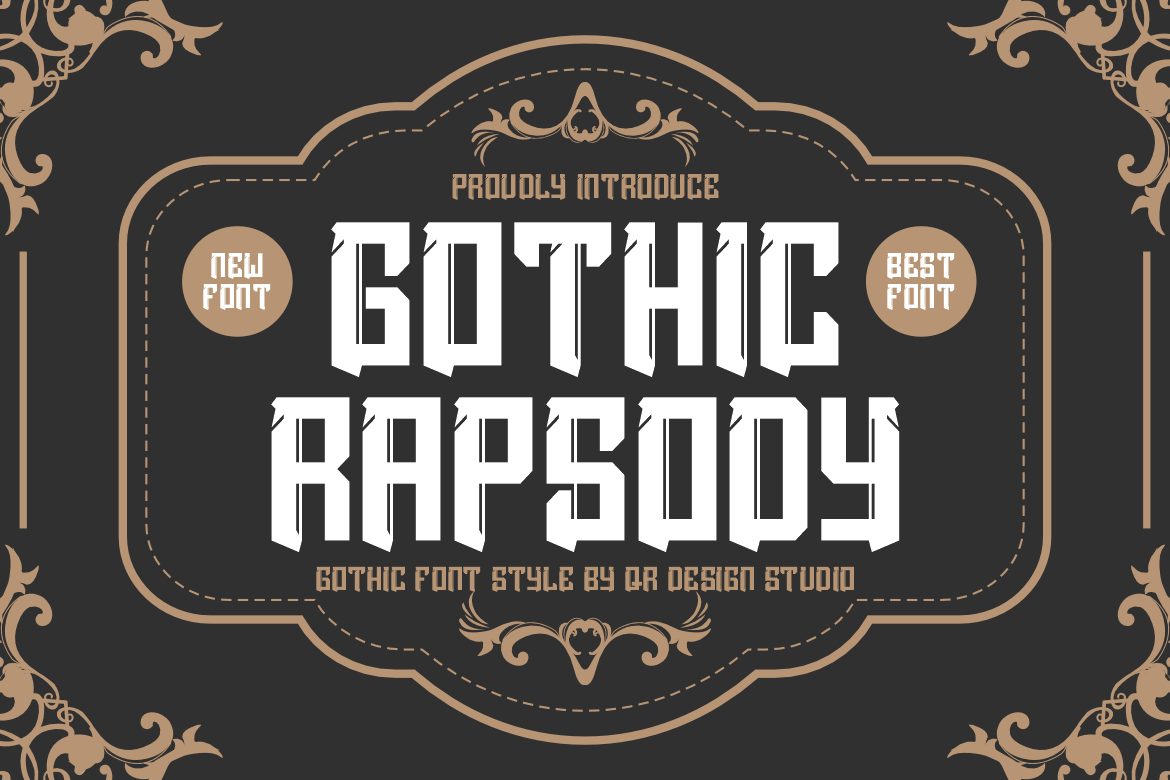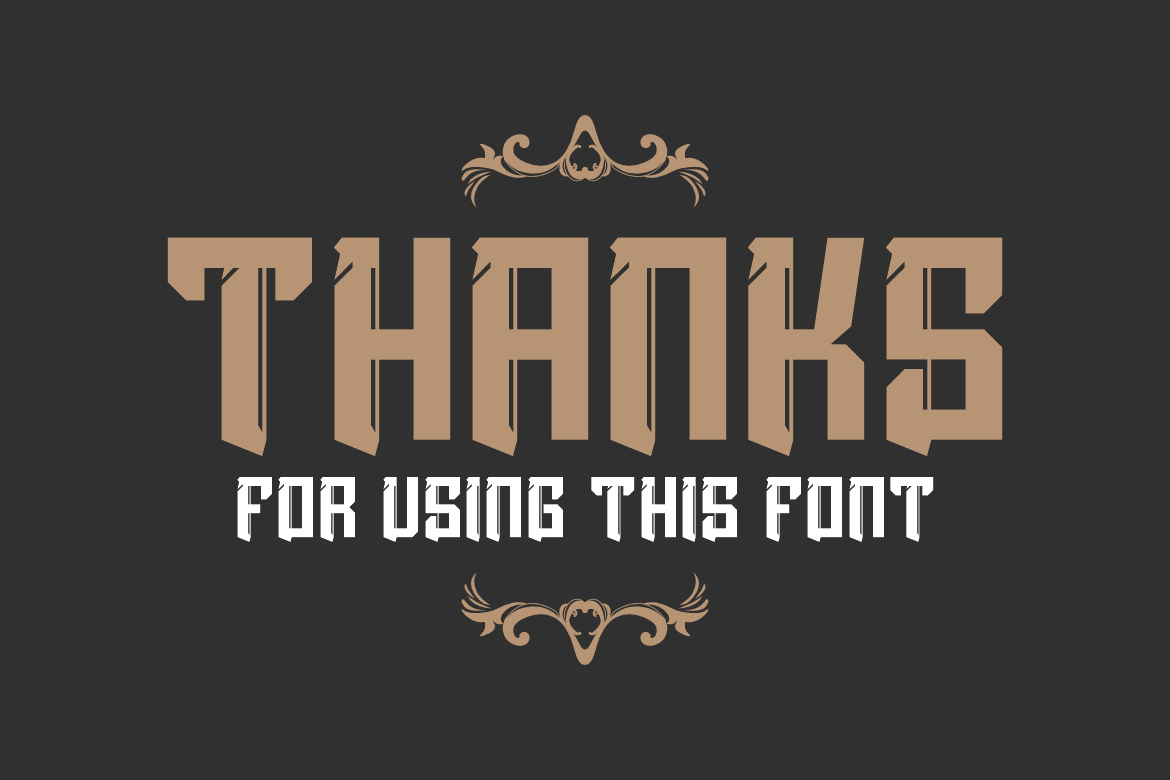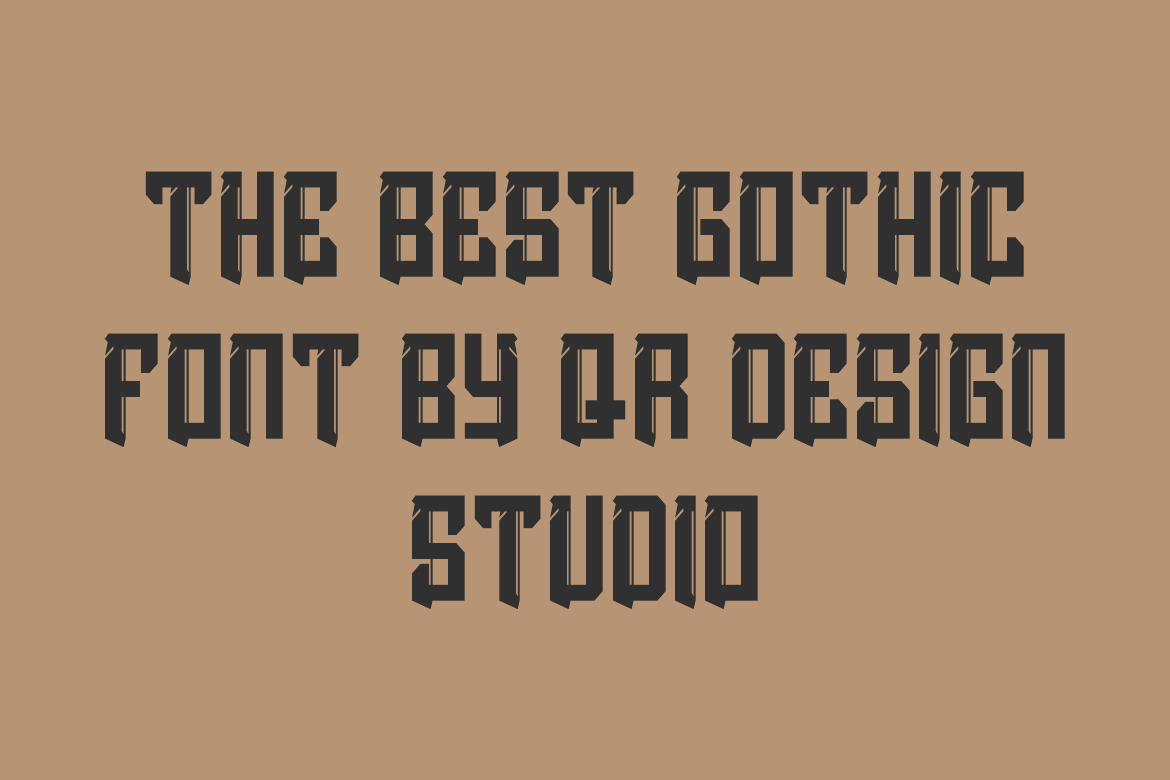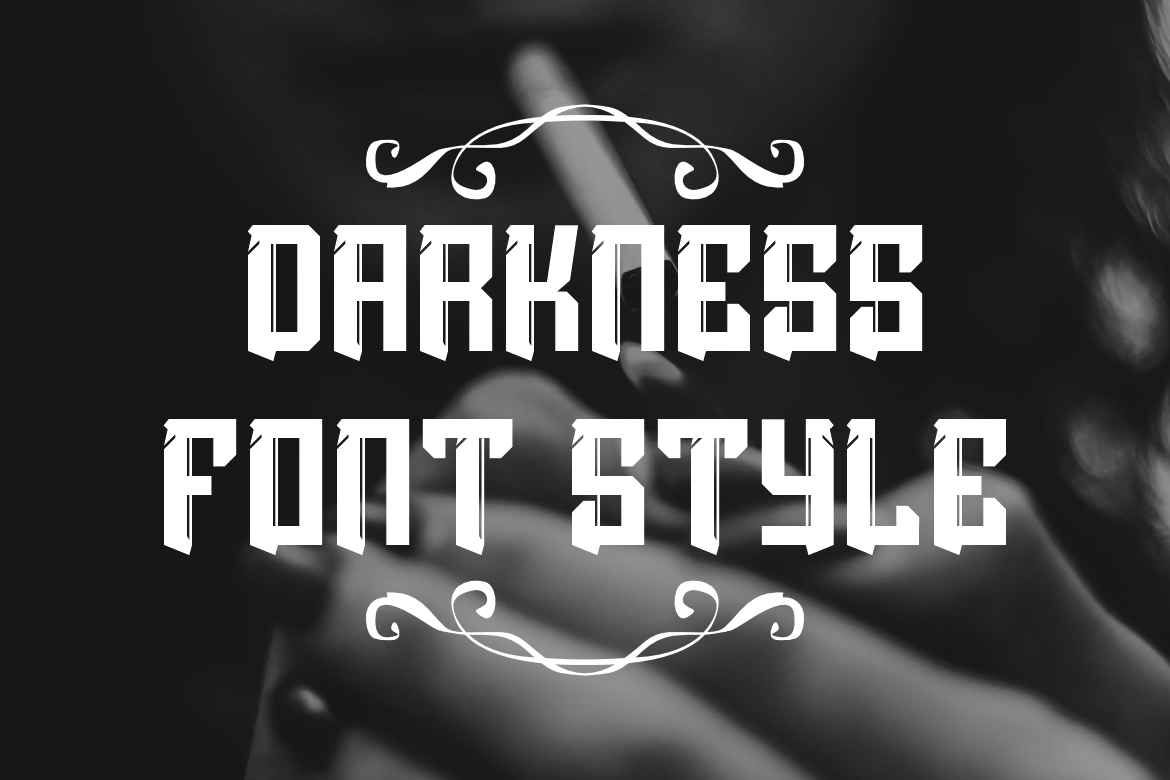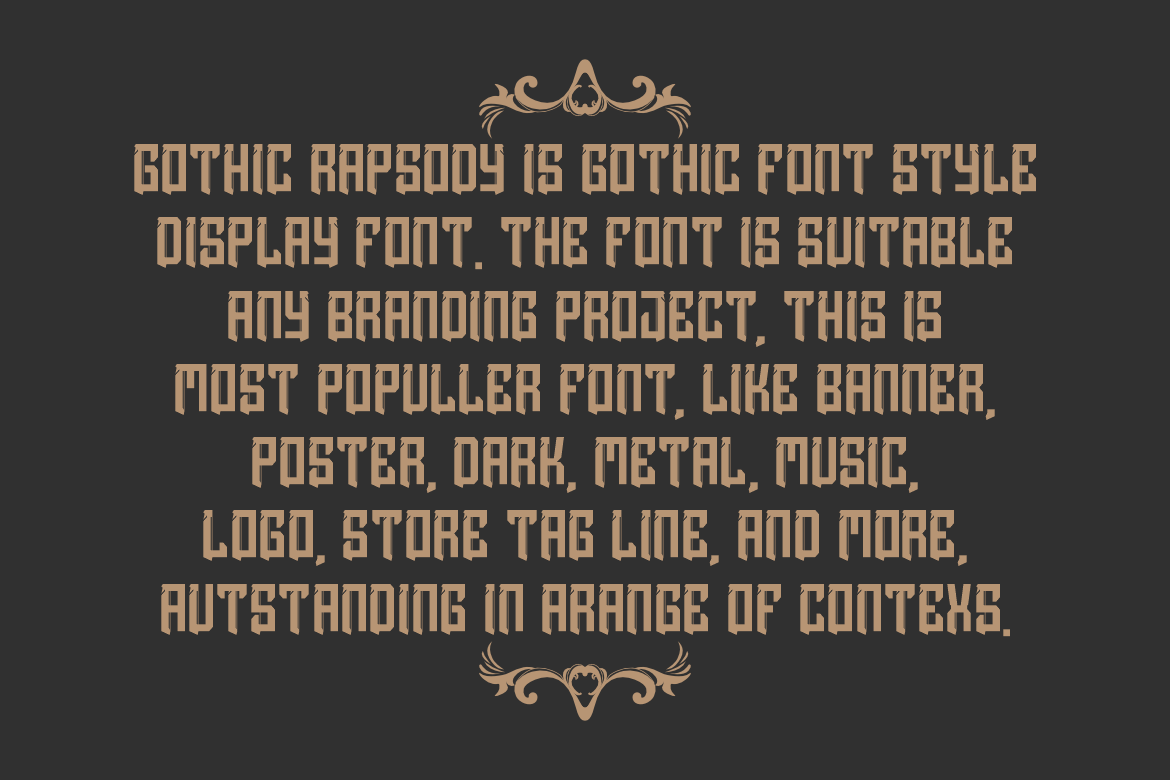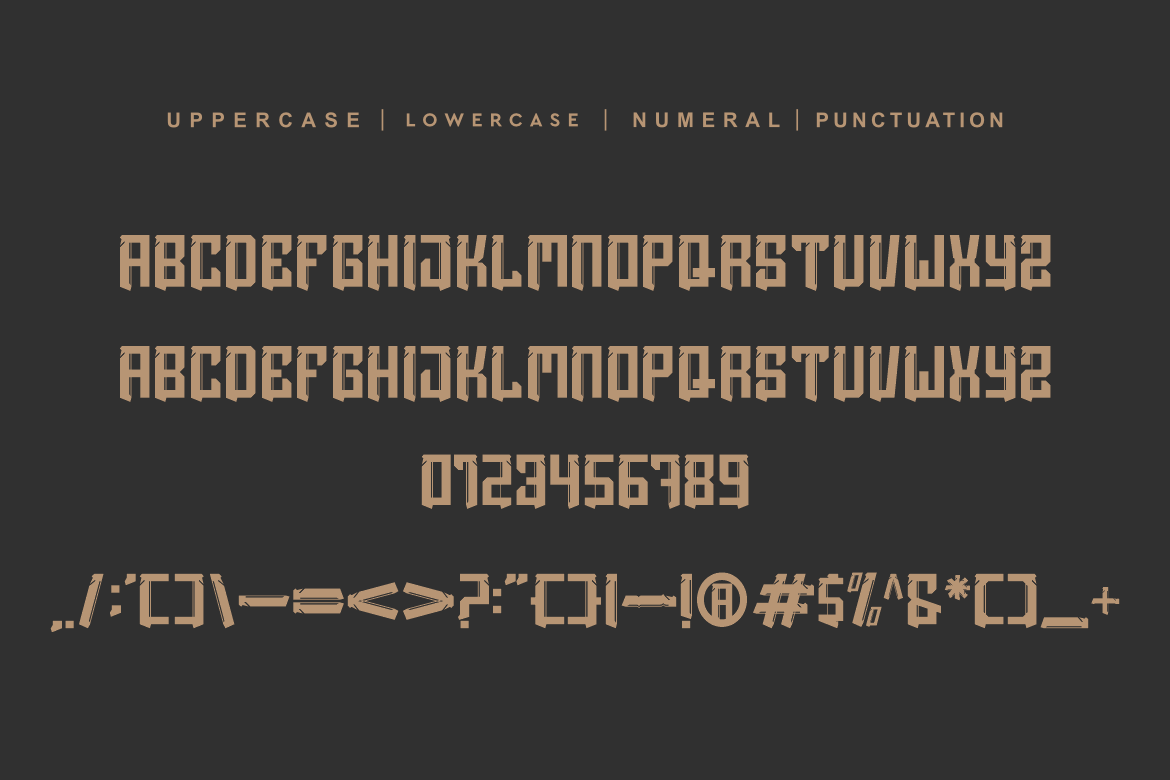
Gothic Rapsody – Blackletter Font
Gothic Rapsody – Blackletter Font is a bold and authentic display font.
The font is suitable for any branding project like poster, gothic, dark, metal, music, logo, sport, and many more.
Outstanding in a wide range of contexts.